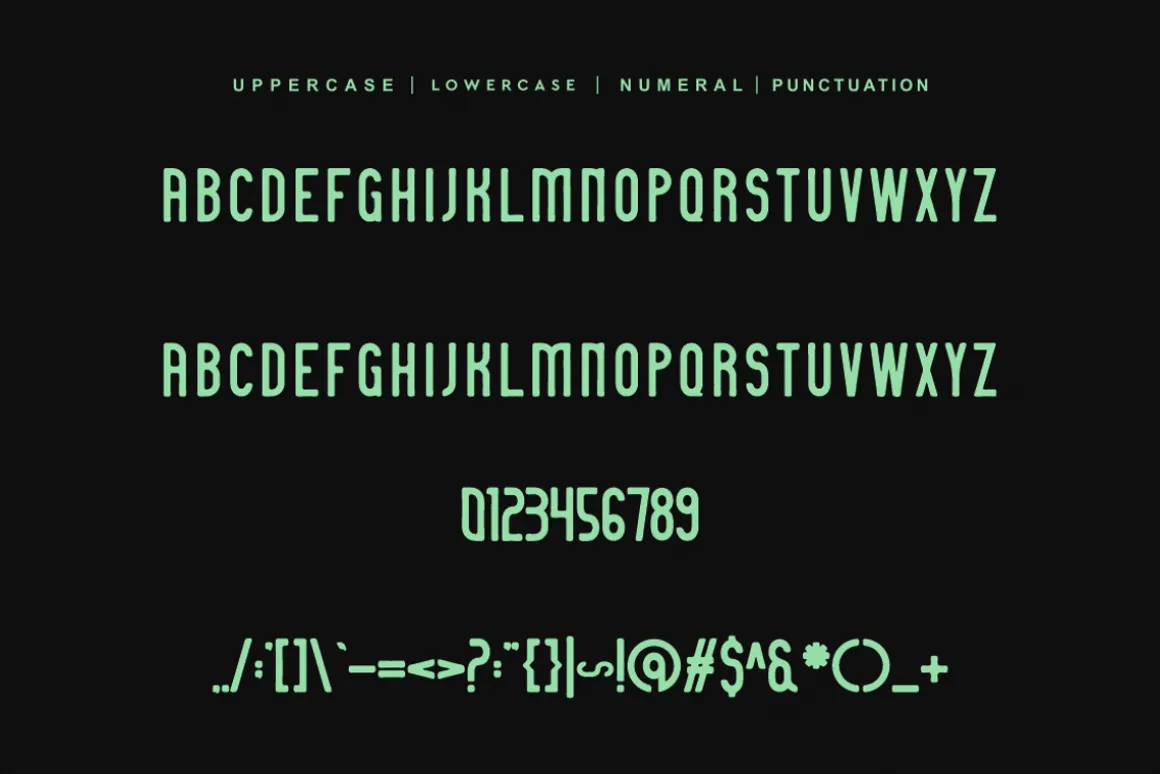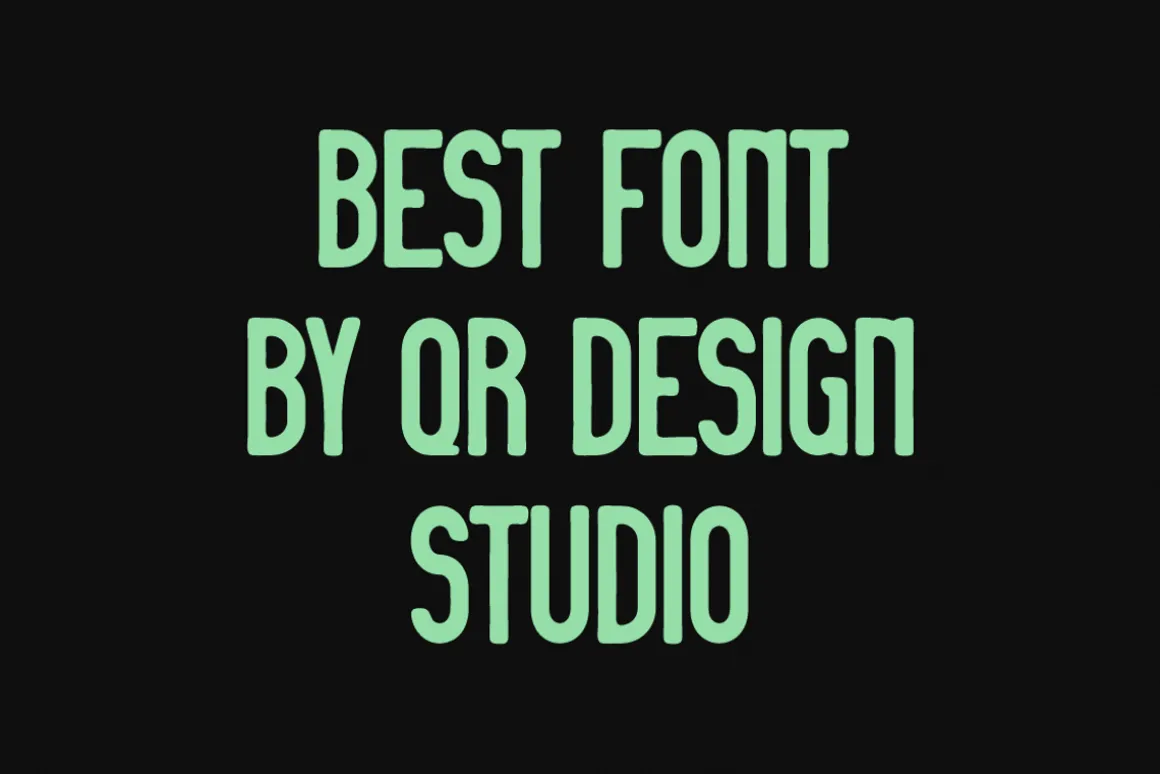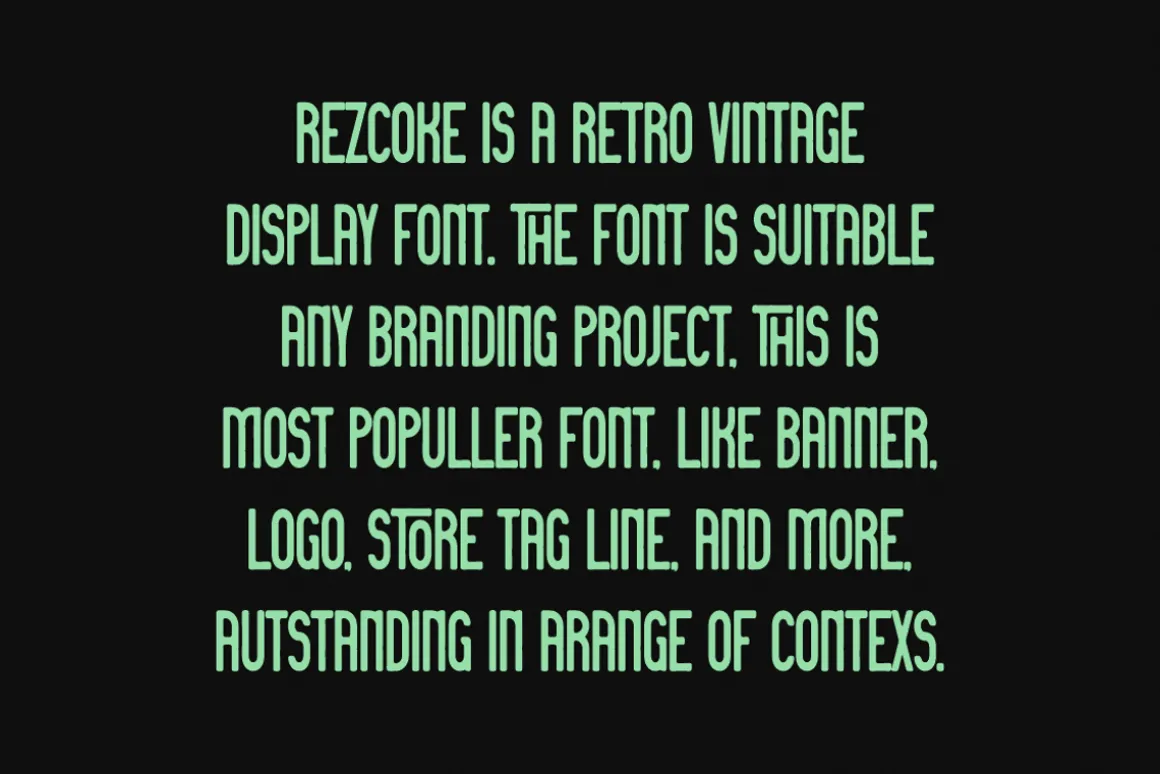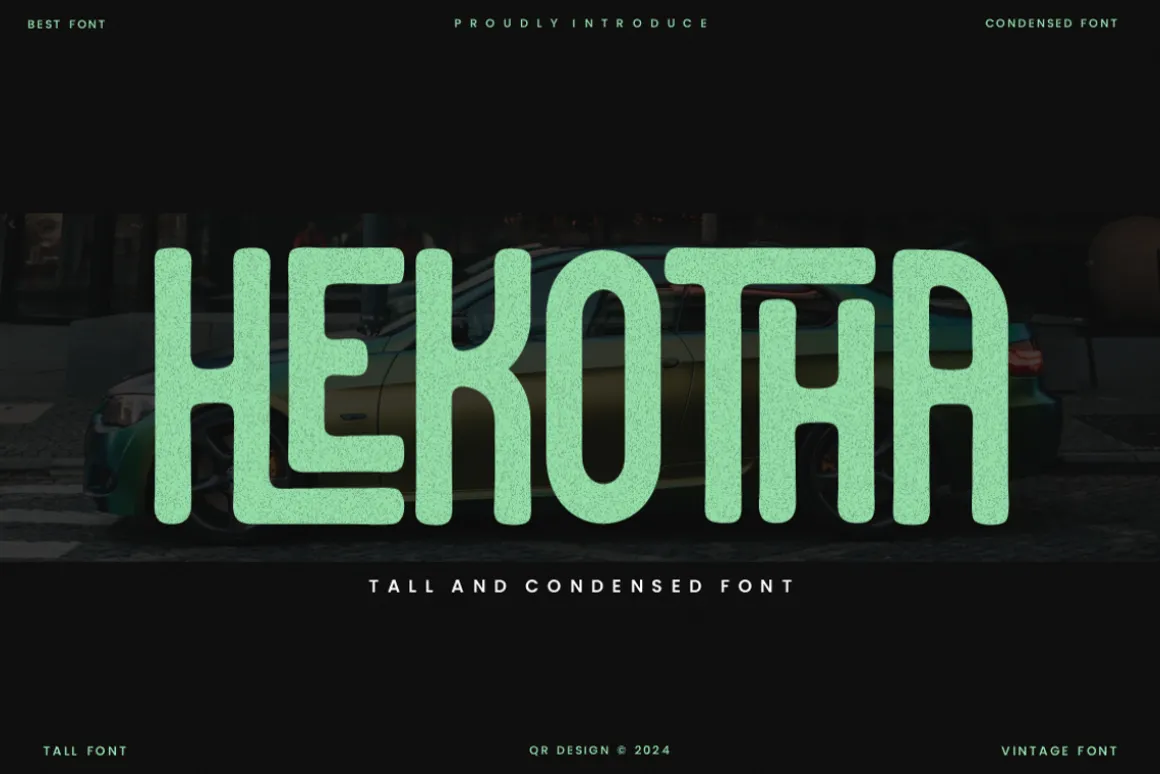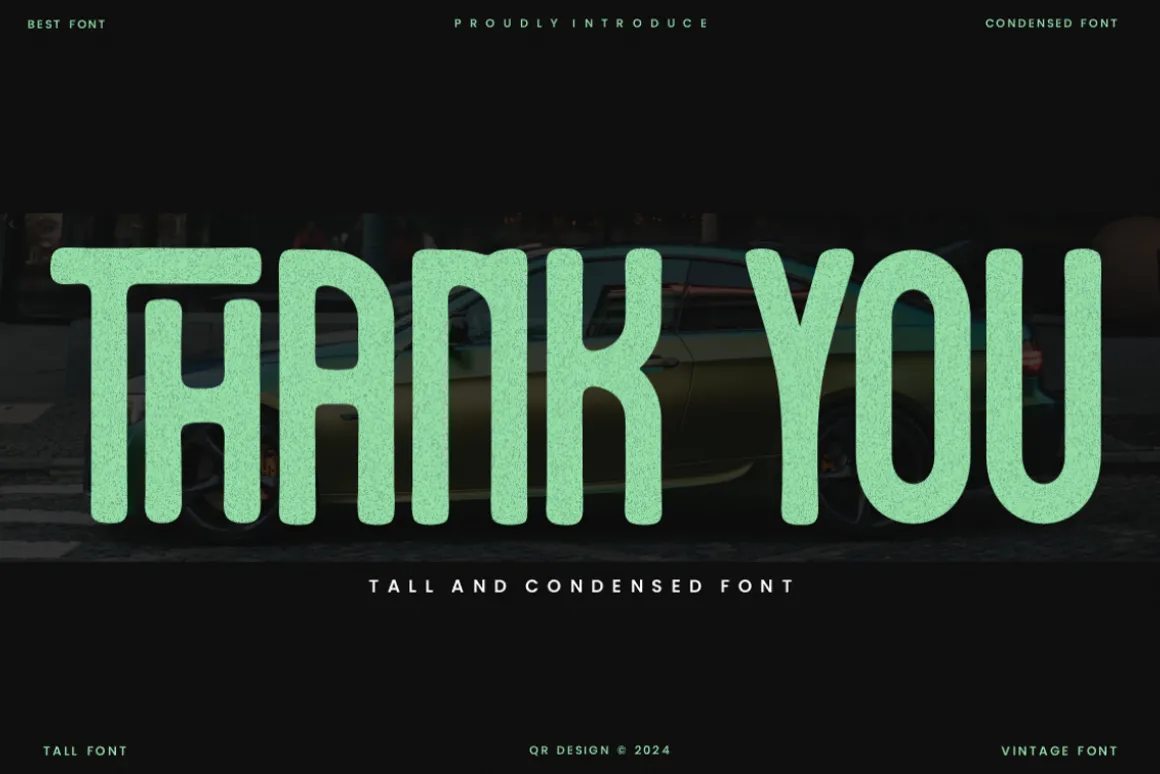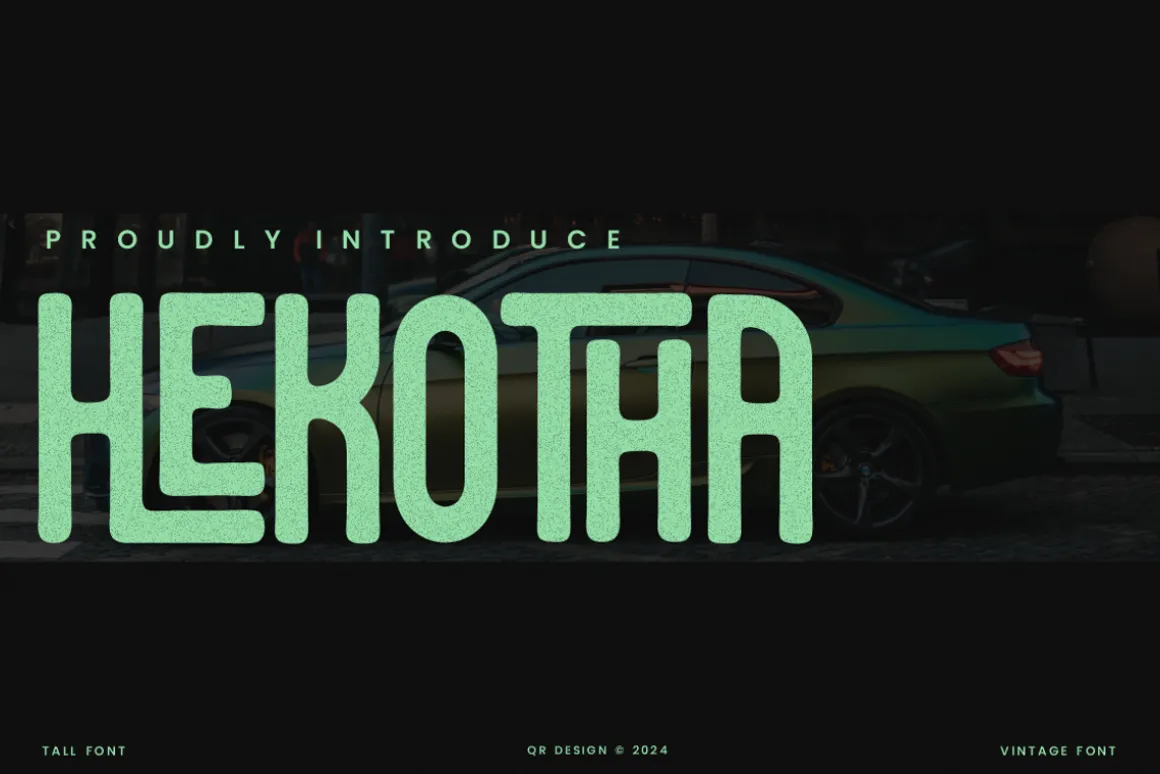
Hekotha – Tall & Condensed Font is a bold and authentic display font.The font is suitable for any branding project like poster, logo, sport, and many more.Outstanding in a wide range of contexts.